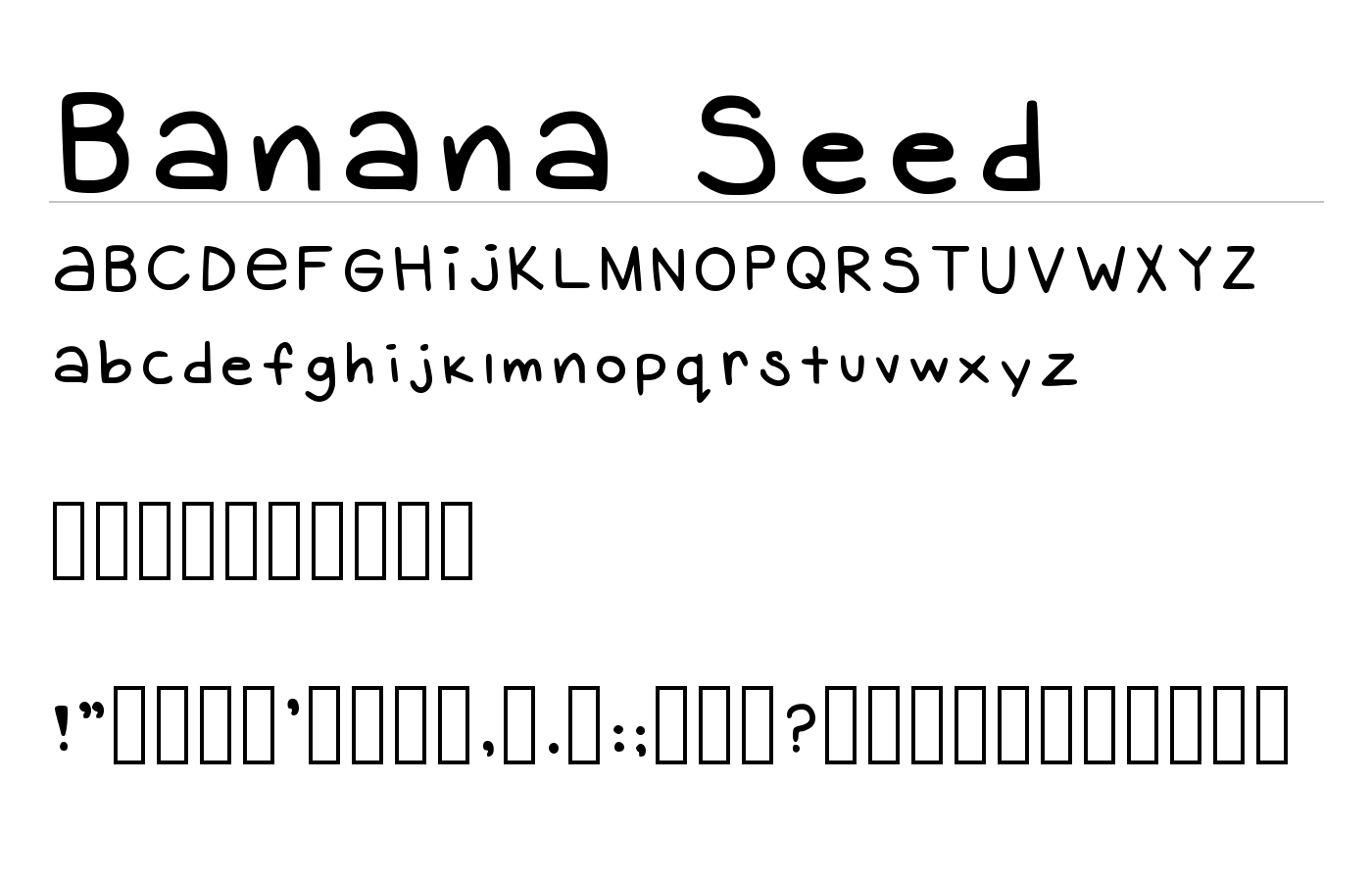
Banana Seed is a playful sans serif font characterized by its rounded, hand-drawn letterforms that convey a casual and friendly vibe. Its light weight and moderate x-height make it ideal for informal designs, children’s books, and creative branding, offering a warm and approachable personality that stands out in headlines or short texts. This font works best where a relaxed, whimsical tone is desired, adding charm and individuality to any project.
Banana Seed Font